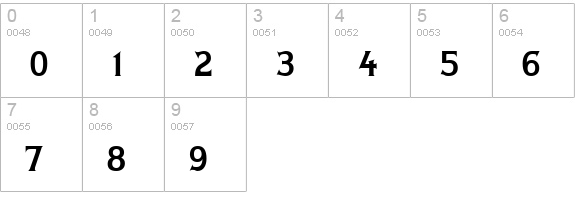
Lady Copra Font Details
Lady Copra is a stunningly elegant and versatile font that exudes sophistication and grace. With its delicate yet bold letterforms, this font captures the essence of femininity and empowers any design with a touch of class. Lady Copra is perfect for a wide range of design projects, from wedding invitations to branding materials and editorial layouts. Its clean lines and exquisite curves make it a timeless choice that will never go out of style. One of the best things about Lady Copra is that it is completely free! Yes, you heard it right. This marvelous font is freely available to download at FontsMarket.com, making it accessible to designers and creatives all around the world. So whether you're working on a personal project or a professional assignment, Lady Copra will elevate your designs to new heights. Its effortless charm and versatility will captivate your audience and leave a lasting impression. Don't miss out on this incredible opportunity to enhance your designs with the beauty of Lady Copra – download it for free at FontsMarket.com today!